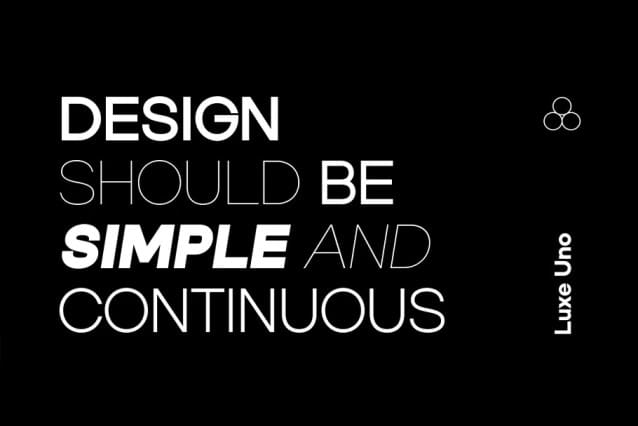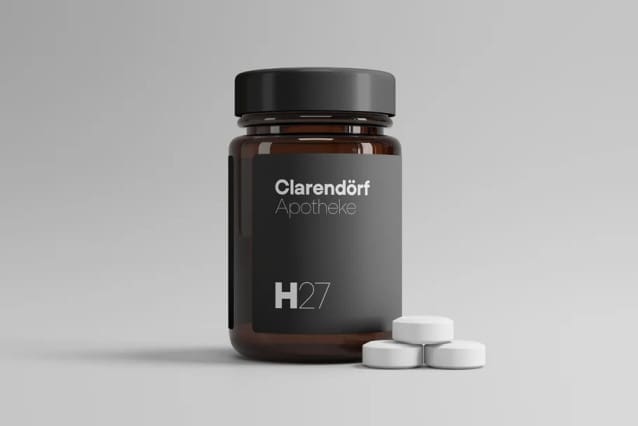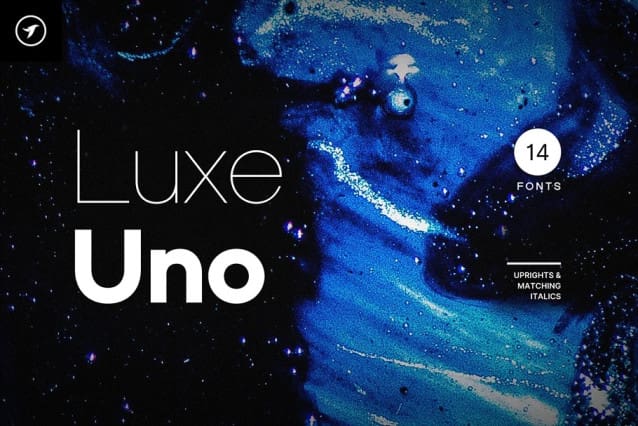
Luxe Uno Font Family
Luxe Uno Font Family, is a modern Sans-Serif typeface with a clean & balanced design and an enduring appearance. This is a perfect choice for creating logotypes, branding, headlines, corporate identities, and marketing materials for web, digital and print alike.
The typeface will be a great option for branding, logo/logotype design projects, marketing graphics, banners, posters, signage, corporate identities, and editorial design. Adding extra letter spacing will make this font the perfect choice for minimal headlines and logotypes, as shown in the promo designs attached.
Handcrafted and designed with powerful OpenType features in mind, each weight includes extended language support with Western European, Central European, and South Eastern European sets. A total of 391 glyphs are available.